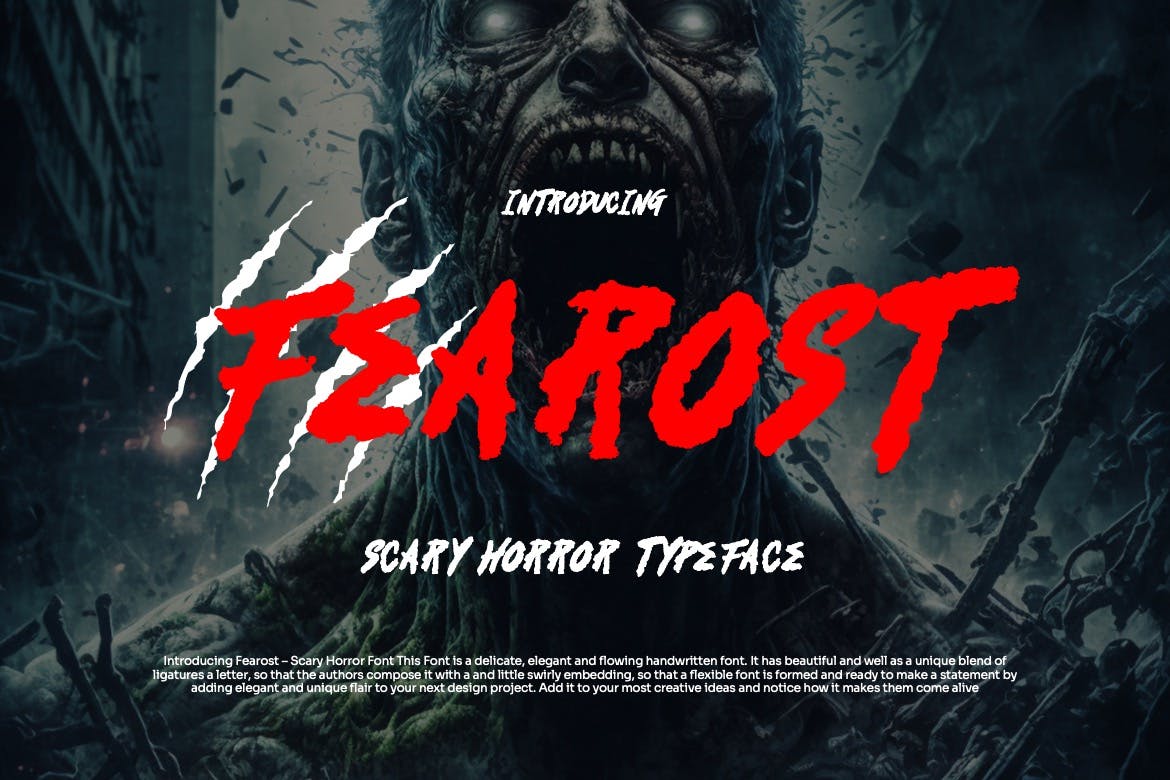
Fearost - Scary Horror Font
The Fearost - Scary Horror Font is perfect for horror movie posters, haunted house signage, Halloween decorations, gothic band logos, dark gaming interfaces, spooky book covers, haunted attraction branding, and eerie social media graphics.
What makes Fearost - Scary Horror Font so exciting is its masterful ability to evoke genuine fear and suspense through carefully crafted letterforms that seem to crawl off the page. This spine-chilling typeface features jagged edges, distorted characters, and ominous shadows that create an immediate sense of dread and anticipation. Each letter appears to have been carved from nightmares, with irregular strokes and menacing details that capture the essence of classic horror aesthetics. The font's unsettling character spacing and dramatic weight variations create visual tension that perfectly complements dark themes, making it the ultimate choice for projects that need to send shivers down viewers' spines.
The Fearost - Scary Horror Font family includes multiple terrifying variations designed to maximize fear factor across different applications. The collection typically features Regular, Bold, and Distressed versions, each with unique horror-inspired characteristics like blood drips, cracks, and decay effects. Many versions include alternative characters with extra spooky details, decorative borders, and symbol sets featuring skulls, bats, and other macabre elements that enhance the overall frightening atmosphere.
When seeking authentic horror typography solutions, Fearost - Scary Horror Font Free Download emerges as the ultimate weapon for designers creating truly terrifying visual experiences. This exceptional typeface transforms ordinary text into bone-chilling communications that capture audiences' attention and refuse to let go, making every word feel like a whisper from beyond.
The font's versatility extends across all horror-themed applications, from digital movie trailers to printed merchandise. Its carefully balanced distortion maintains readability while maximizing scare factor, ensuring your message gets through even as it sends chills down readers' spines. The dramatic contrast and irregular spacing create perfect visual rhythm for building suspense and maintaining atmosphere.
Professional designers in the entertainment industry rely on this terrifying font for their most frightening projects. Whether developing brand identities for horror productions, creating promotional materials for Halloween events, or designing merchandise for dark entertainment brands, this font delivers the perfect combination of genuine fear and professional quality that horror audiences crave.